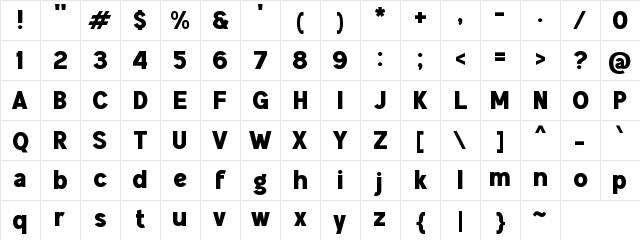
Complete h Hias Sans Regular glyph index. Displaying only characters natively supported by h Hias Sans Regular font.
h Hias Sans is a composed and adaptable typeface that performs quietly and consistently across a wide range of design contexts.